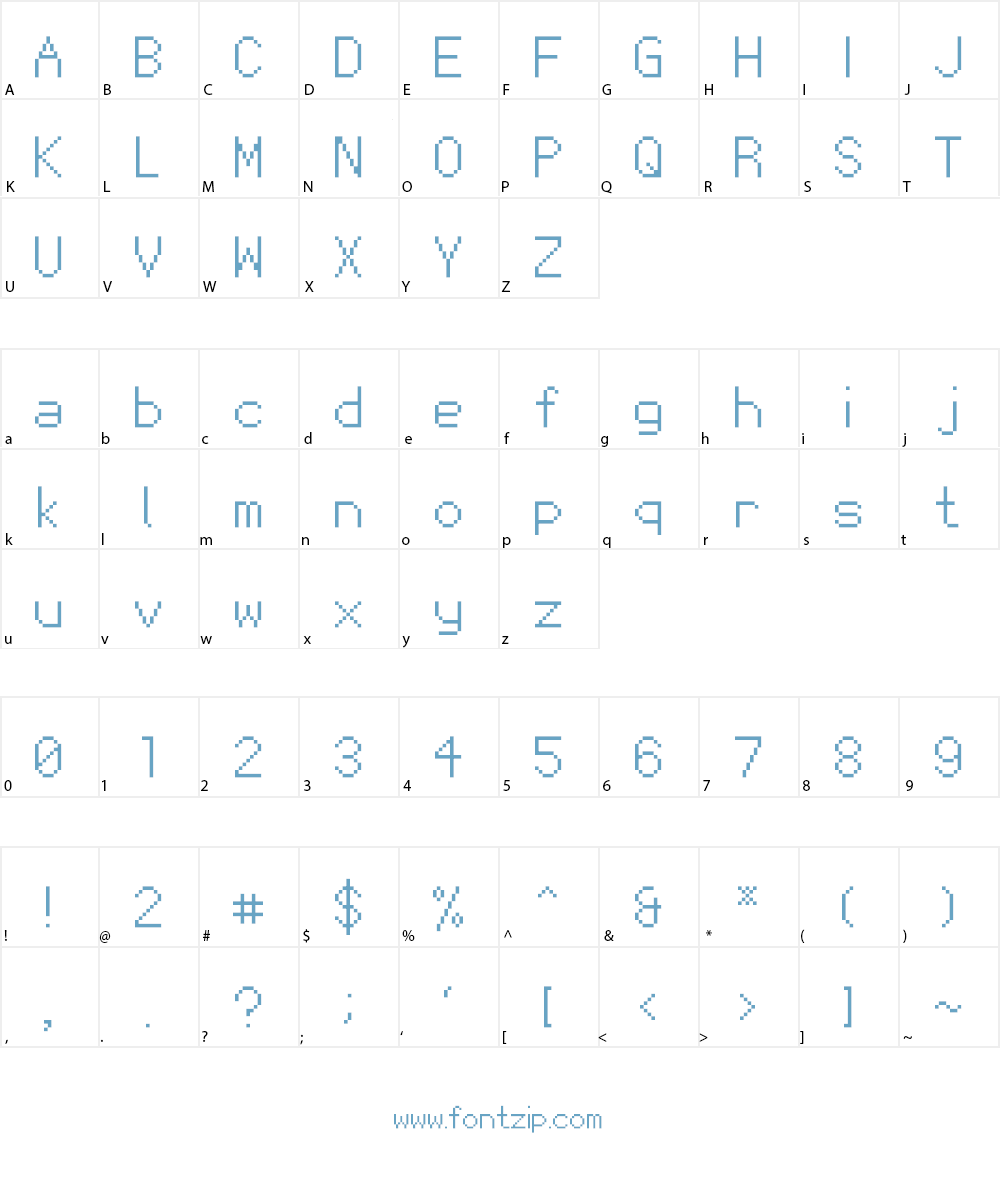
A pixel font ideal for main text on small displays (use with Smart Patrol NBP for maximum effectiveness!)
CHANGES IN VERSION 1.1:
-Fixed a design issue with lowercase "y"
-Added Extended Latin, Cyrillic, and Greek/Coptic characters